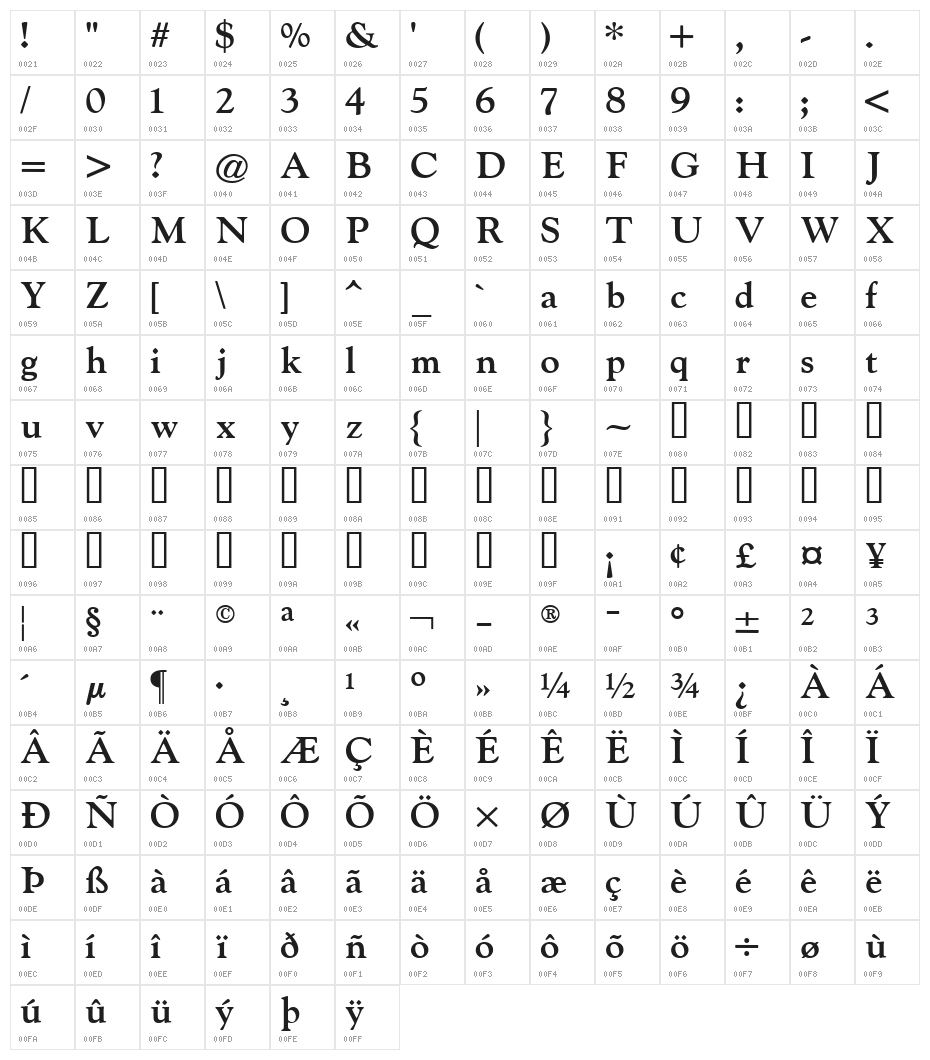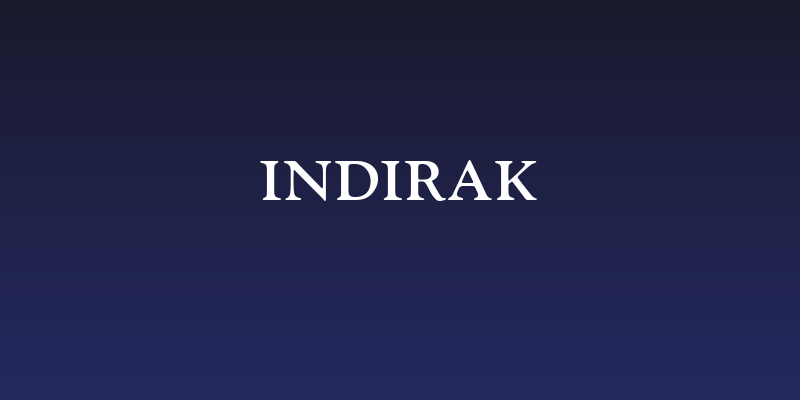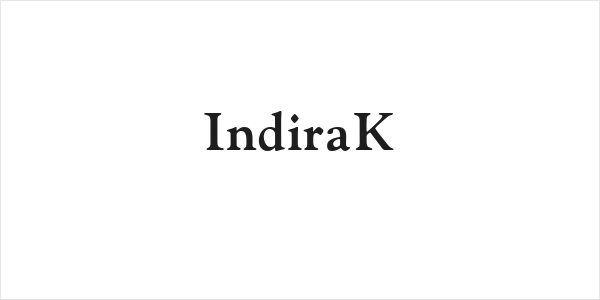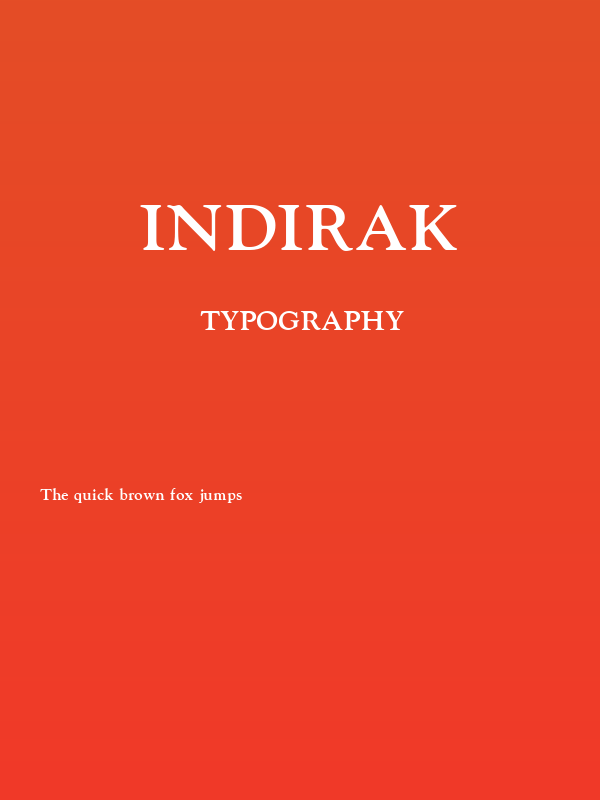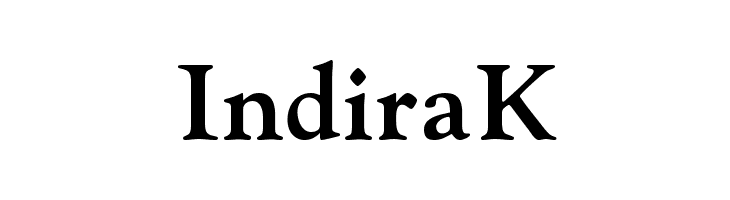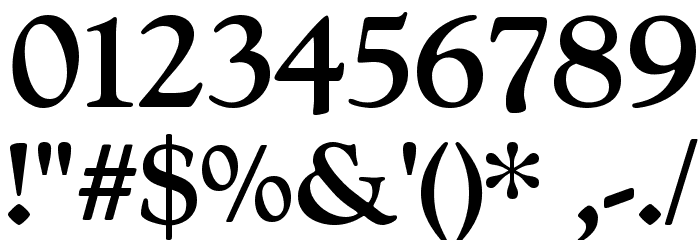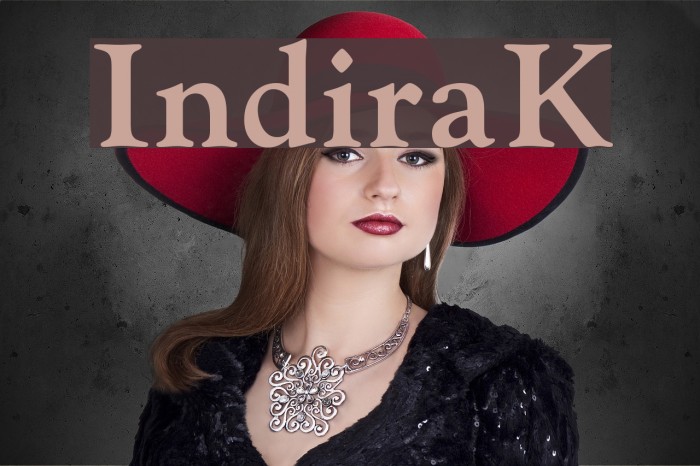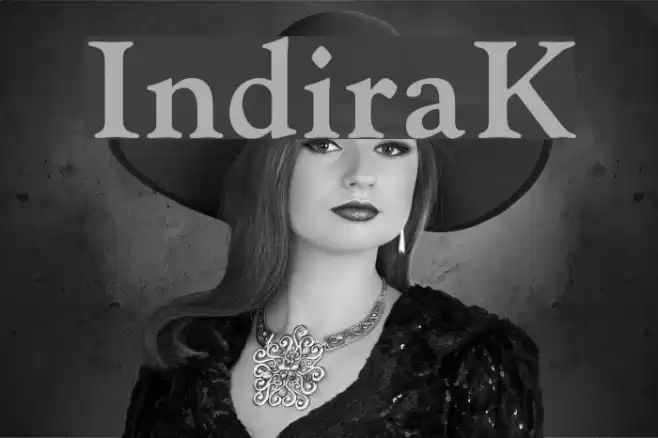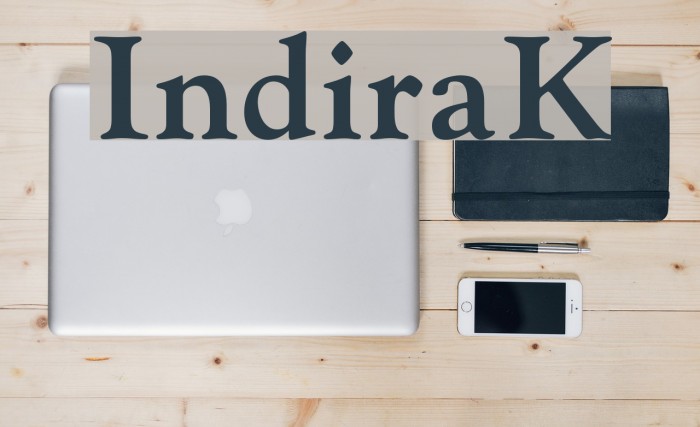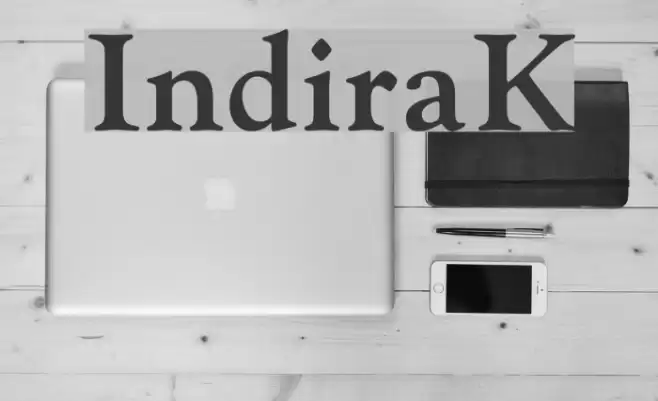
IndiraK Font
IndiraK Description
This font exhibits a classic serif style with elegant, well-defined strokes and a traditional appearance. The serifs are pronounced, adding a touch of sophistication and readability to the characters. The uppercase letters are bold and commanding, while the lowercase letters maintain a balanced and harmonious look. The numerals are clear and consistent, making them suitable for both formal and informal settings. Special characters are designed with the same attention to detail, ensuring a cohesive look across all glyphs. The overall design is timeless, making it versatile for various applications.
| Overall Style | Classic |
| Use Case | Headlines, Body text, Logos |
| Proposed Projects | Ideal for book covers, formal invitations, editorial design, and branding projects that require a touch of elegance. |